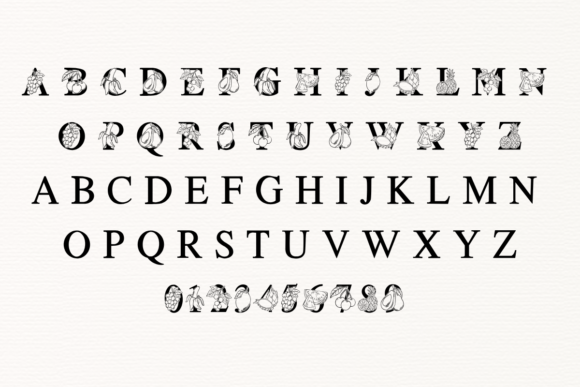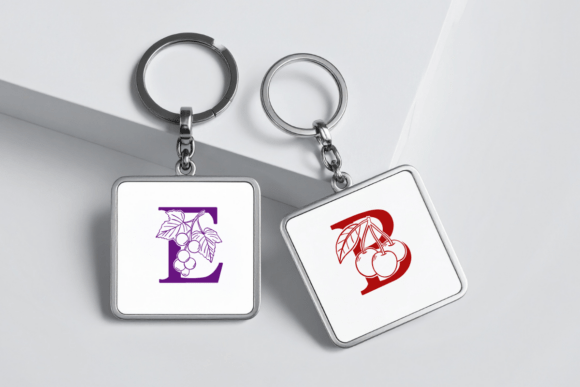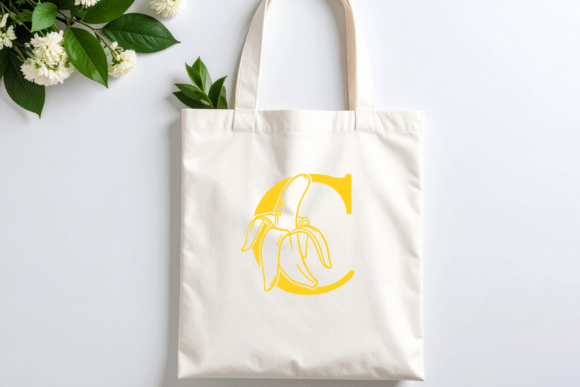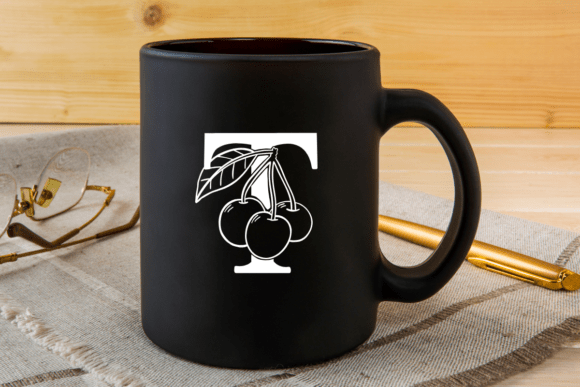
Fruit Font: Where Nature Meets Typography
Introducing Fruit, a decorative serif font that redefines the boundaries of typography and art. This exquisite font is a masterful blend of natural beauty and sophistication, where each letter is meticulously adorned with hand-drawn fruit illustrations. The result is a unique and captivating typeface that embodies the essence of freshness, craftsmanship, and creativity.
The Design Philosophy of Fruit Font
Fruit font is built on a refined serif base, providing structure and elegance to the overall design. This classic foundation is then elevated by the addition of decorative fruit motifs, which inject a sense of whimsy and playfulness into the font. The combination of traditional typography and organic illustrations creates a visually striking effect, perfect for designs that require both character and refinement.
Applications of Fruit Font
The versatility of Fruit font makes it an ideal choice for a wide range of design projects. Whether you’re working on labels, packaging, posters, logos, or botanical projects, this font is sure to make a lasting impression. Its unique blend of natural charm and typographic sophistication makes it particularly well-suited for:
- Gourmet food branding: Add a touch of elegance and sophistication to your food packaging and branding with Fruit font.
- Natural cosmetics: Create a distinctive and memorable brand identity for your natural cosmetics with this beautiful font.
- Eco-friendly product design: Perfect for designing labels and packaging for eco-friendly products, Fruit font conveys a sense of freshness and sustainability.
The Artisanal Touch of Fruit Font
One of the standout features of Fruit font is its handcrafted aesthetic. Every curve and detail has been meticulously crafted to capture the essence of abundance and creativity. The hand-drawn fruit illustrations add a touch of artisanal charm to each letter, making Fruit a typeface that’s both visually rich and refreshingly modern.
Bringing Words to Life with Fruit Font
Fruit font has the power to transform words into art. Its unique blend of typography and illustration makes it perfect for designs that require a touch of elegance and sophistication. Whether you’re working on a logo, packaging, or poster design, Fruit font is sure to elevate your project to the next level.
Key Features of Fruit Font
- Decorative serif font with hand-drawn fruit illustrations
- Refined serif base for structure and elegance
- Decorative fruit motifs for a touch of whimsy and creativity
- Perfect for labels, packaging, posters, logos, and botanical projects
- Ideal for gourmet food branding, natural cosmetics, and eco-friendly product design
- Handcrafted aesthetic with a unique and distinctive feel
Fruit font is a game-changing typeface that redefines the boundaries of typography and art. Its unique blend of natural beauty and sophistication makes it perfect for designers and crafters looking to add a touch of elegance and whimsy to their projects. With its handcrafted aesthetic and versatile design, Fruit font is sure to become a favorite among designers and crafters alike.